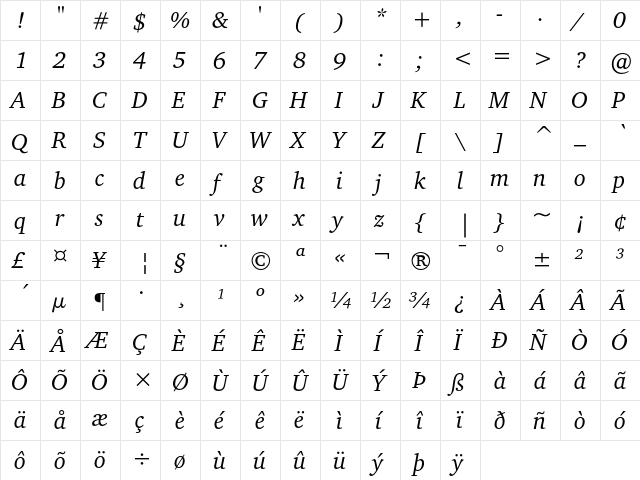
ITC Charter Italic
Design Context for ITC Charter Typeface
ITC Charter takes a measured approach to typography — its balanced proportions and neutral character make it a reliable workhorse for both digital and print work. The slanted form adds forward momentum and visual energy.
Pro Tip: Try ITC Charter for annotation and caption copy alongside an upright companion — the contrast in angle creates a dynamic but ordered typographic system.